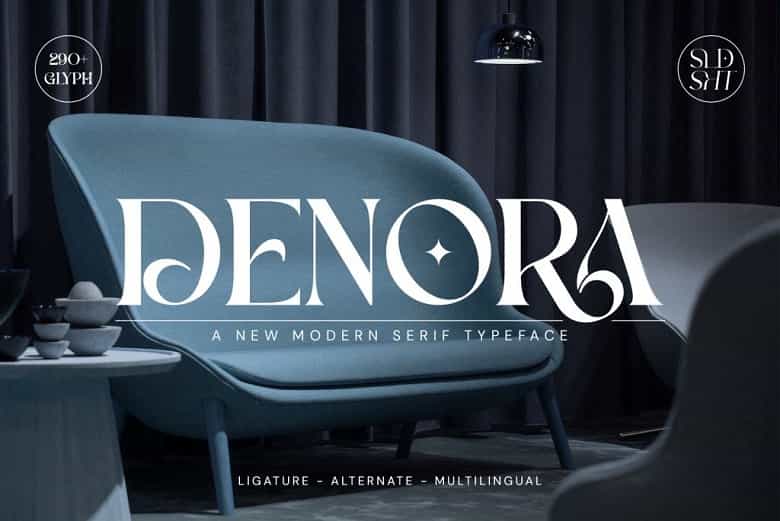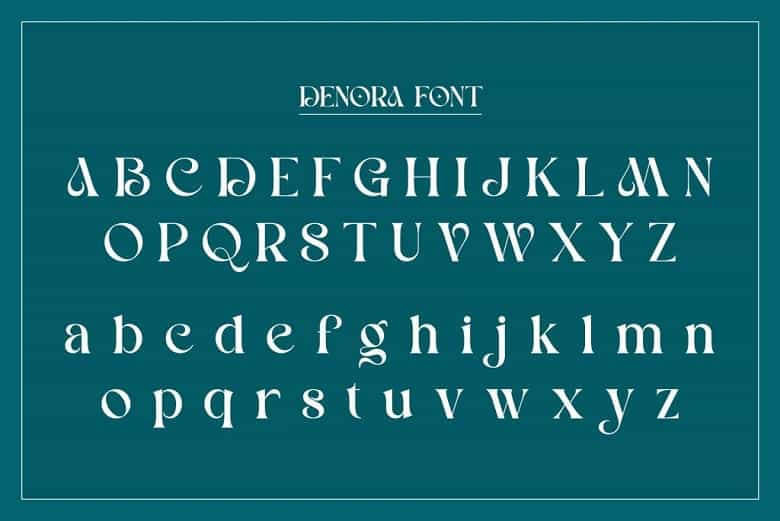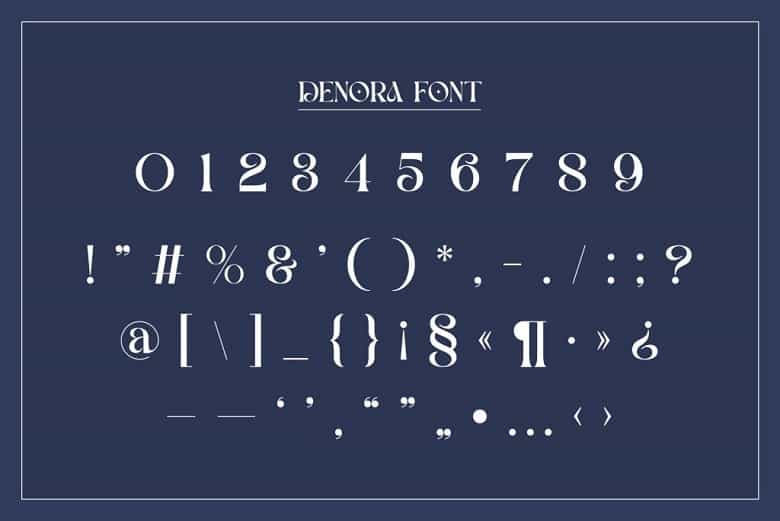
Denora is a modern, simple, clear and graceful serif font. This shows that he is a very good person in the house with beautiful character. It is suitable for use with invitation cards, business logos, movies names/titles, business cards, book titles, brand names and any other designs.